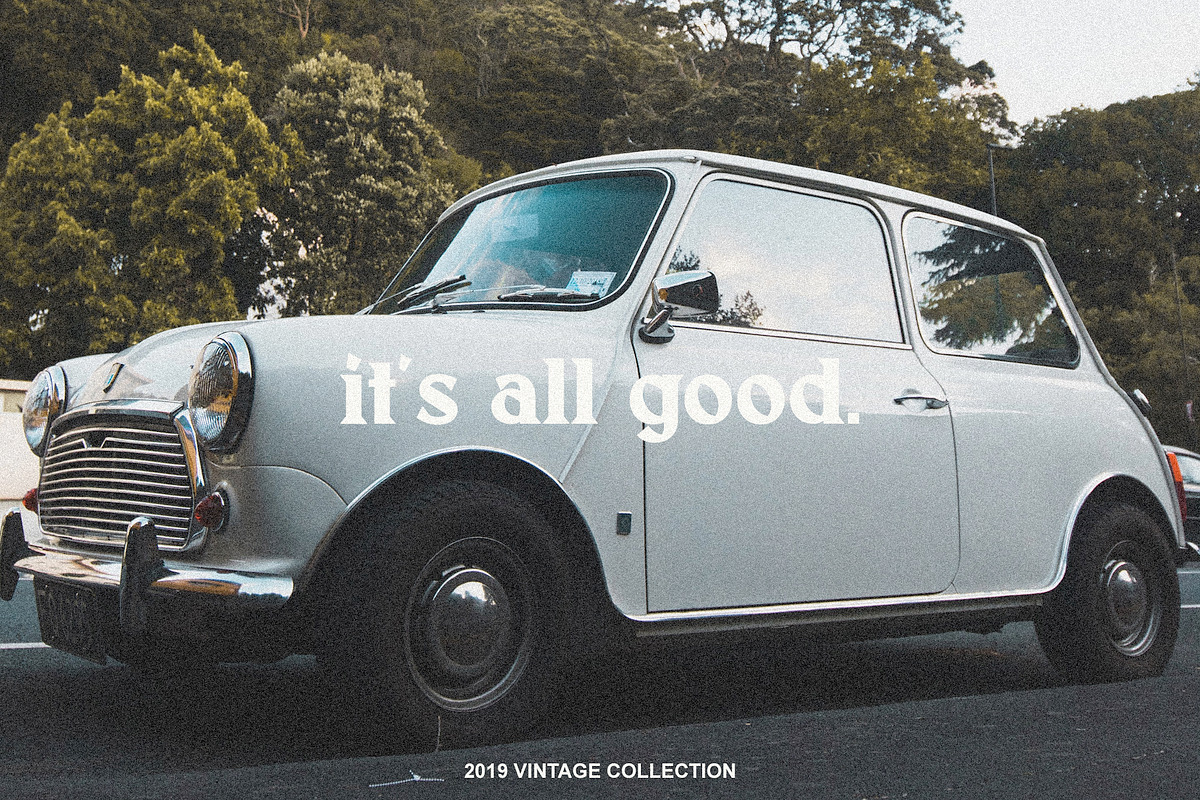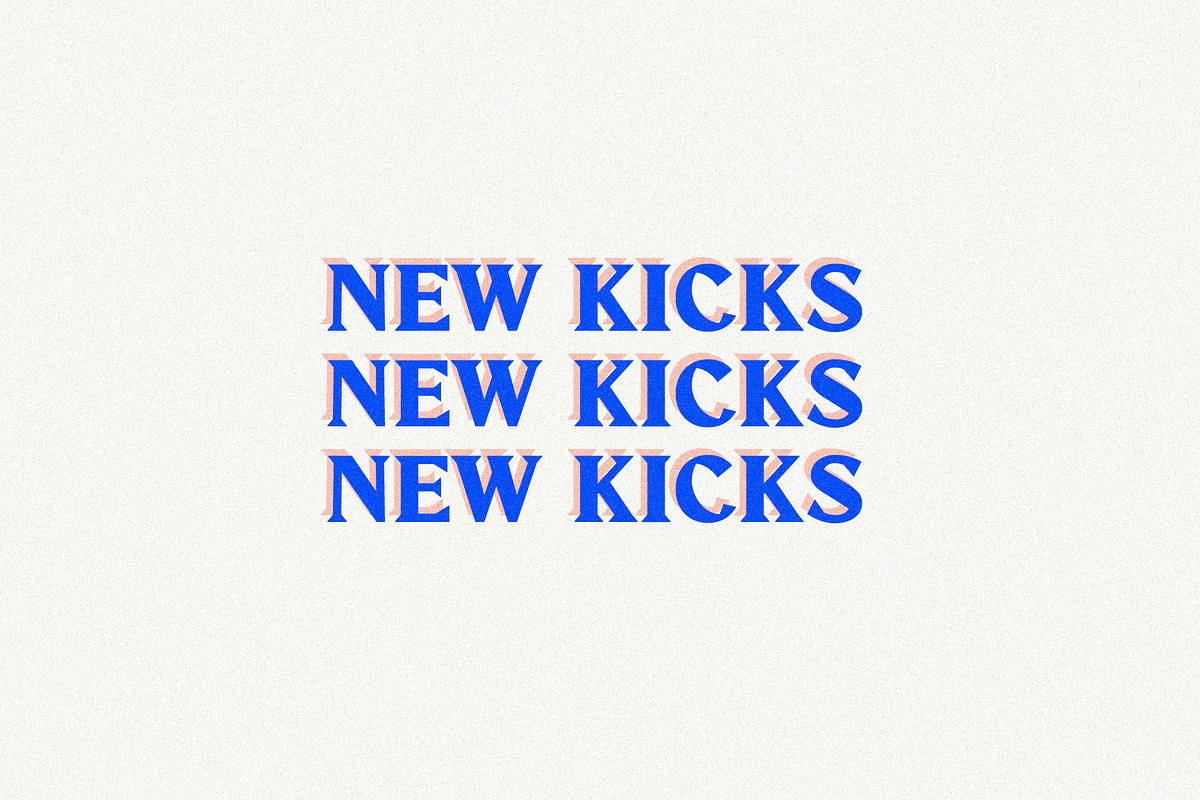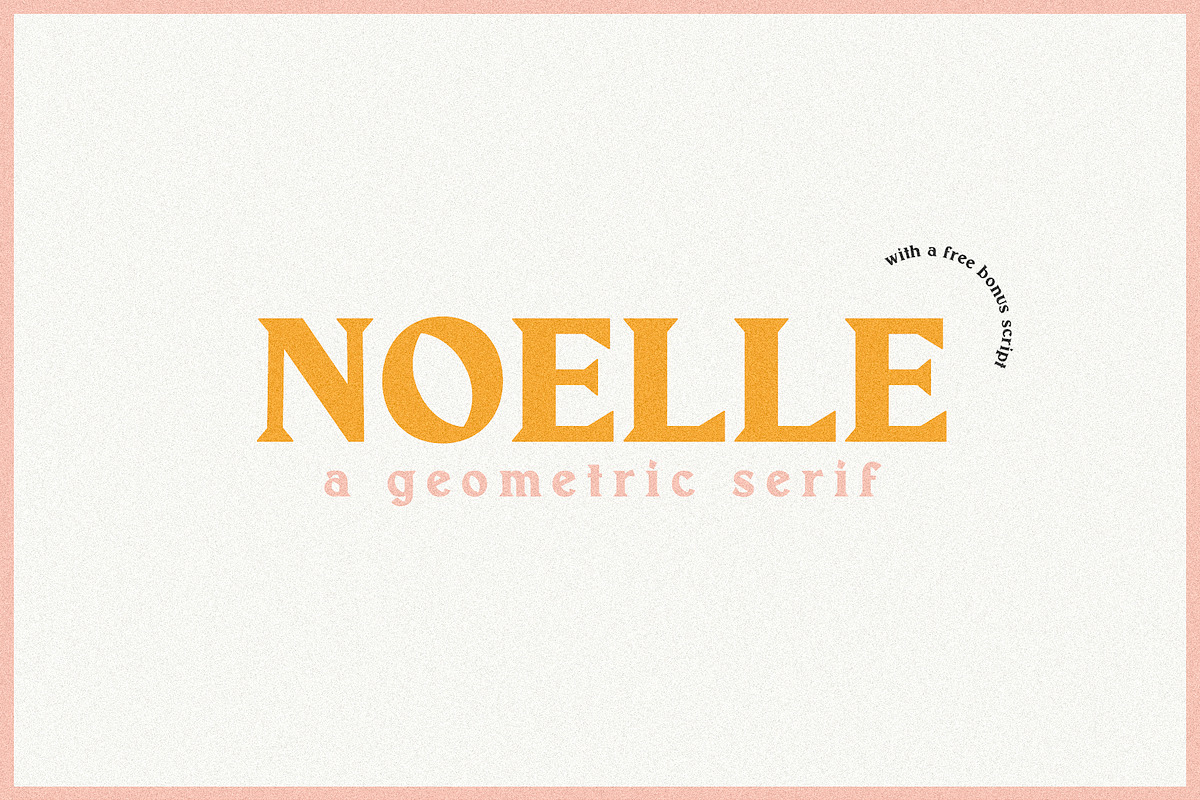
Noelle | Modern Serif & Free Script
Noelle is a classic, minimalist serif that functions beautifully in modern design work – geometric, clean lines; modern serifs, and just a touch of vintage. It looks gorgeous in logo work as well as web headings and printed materials. This download also comes with Kyoto Wedding Script as a free bonus, which pairs really beautifully with Noelle.
Noelle Serif includes:
- Upper & lowercase letters
- Foreign language accents & characters for the international designer